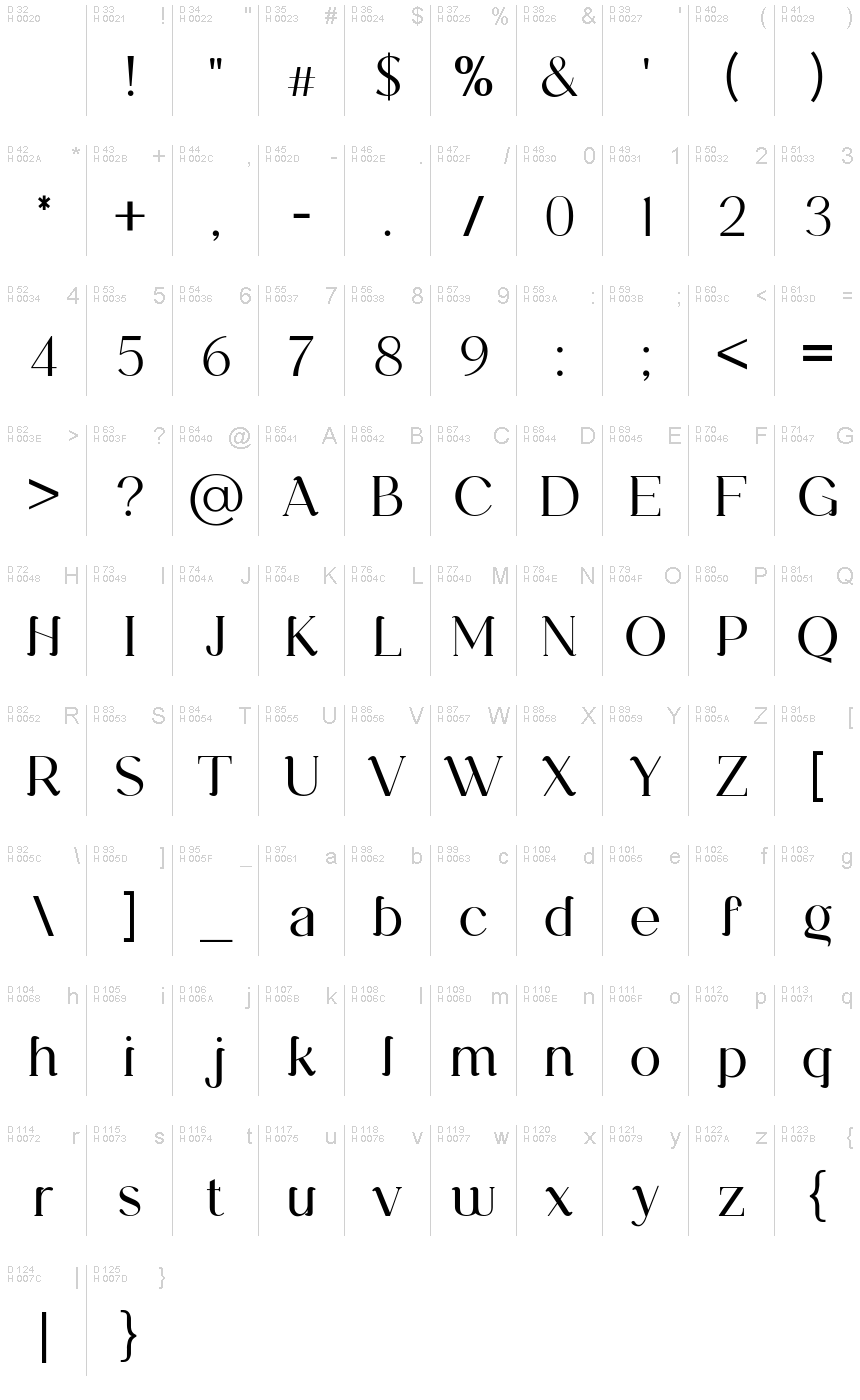
Kinematical
Kinematical, a captivating serif font designed by UI Creative, exudes a refined elegance with its harmonious curves and clean lines. This typeface's distinctive character evokes a sense of timeless sophistication, seamlessly blending tradition and modernity. Kinematical's balanced structure and subtle geometric influences create a visually striking and versatile typographic solution.
The font's versatility makes it a compelling choice for a wide range of design applications, from editorial layouts and branding projects to packaging and digital interfaces. Kinematical's refined aesthetic lends itself well to high-end, sophisticated designs, where it can elevate the overall aesthetic with its elegant presence. Whether utilized in headings, body text, or impactful display settings, Kinematical's unique personality is sure to captivate and engage audiences.